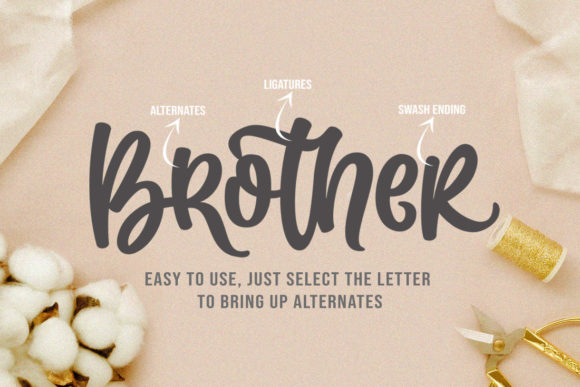
In a world teeming with digital monotony, where uniformity reigns supreme, Martina Font emerges as a breath of fresh air. A symphony of flowing elegance, each letter dances across the screen like a ballerina, their graceful curves and refined details reminiscent of a bygone era of handwritten artistry. Experience the allure of Martina Font, a masterpiece from Subectype, designed to elevate your creative pursuits to new heights.
With its inherent charm, Martina Font gracefully adapts to a myriad of design endeavors, seamlessly blending the allure of tradition with a touch of modern flair. Embrace the beauty of customization and unleash your imagination, crafting logos that exude timeless sophistication, branding that captivates with its distinctive elegance, and social media posts that ignite conversations. Martina Font is your gateway to a world where creativity knows no bounds.
Step into the enchanting realm of Martina Font and discover a treasure trove of possibilities. Let your words take on a life of their own as they flow effortlessly across the screen, imbued with the grace and charm of yesteryear. Your designs will radiate an aura of sophistication that speaks volumes, leaving an indelible mark on the hearts and minds of your audience.
Transport yourself to a world where typography transcends the ordinary, where every letter tells a story, and every word carries the weight of emotion. Martina Font is not just a collection of characters; it's an expression of your individuality, a reflection of your unique style, and a testament to your unwavering pursuit of excellence.
With Martina Font as your creative companion, you'll embark on a journey of self-expression like never before. Your designs will captivate and inspire, leaving a lasting impression that lingers long after the page is turned. Embrace the allure of Martina Font and unlock the true potential of your creative genius.